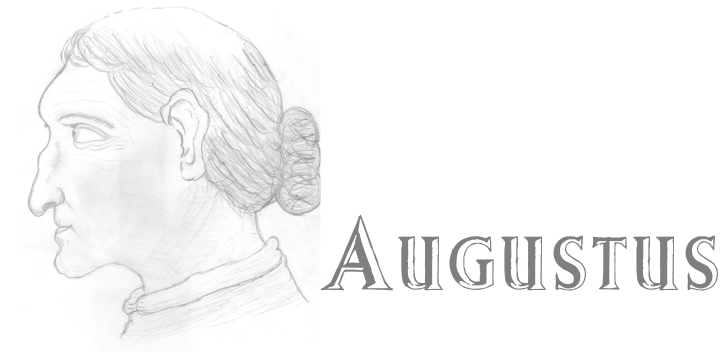
Augustus Font is a regal and distinguished serif typeface that evokes the grandeur and authority of classical Roman lettering, while maintaining clear readability for modern applications. Its stately presence, strong serifs, and balanced proportions make it an exceptional choice for projects aiming to convey tradition, prestige, and timeless sophistication. Imagine it perfect for high-end luxury branding, elegant historical book covers, formal corporate documents, sophisticated wedding invitations, museum exhibit titles, and refined editorial layouts for art and culture publications. This font excels in environments where a sense of established gravitas, intellectual depth, and polished professionalism are paramount. It ensures your message is conveyed with both commanding presence and graceful charm, making your content feel both authoritative and effortlessly refined.
What makes Augustus Font truly exciting is its remarkable ability to blend the monumental majesty of ancient Roman inscriptions with the practical demands of contemporary design. It retains the powerful, enduring quality of classical typography while being meticulously crafted for optimal performance in today's digital and print media. This allows it to convey a sense of heritage and trustworthiness without appearing outdated or overly formal. The robust letterforms, precise detailing, and excellent legibility across various sizes make it a reliable workhorse for both commanding headlines and extended body text. Augustus Font isn't just about displaying text; it's about building a legacy and enhancing your content with a timeless, sophisticated visual presence that speaks to discerning taste and enduring value.
The Augustus Font family typically offers a comprehensive range of weights and styles to ensure maximum versatility for diverse design projects. You'll often find it includes a full spectrum from light to regular, medium, semi-bold, and bold, along with their corresponding italic styles. Some extended versions might even feature condensed or expanded widths, or specialized characters like ligatures and stylistic alternates, further broadening its application possibilities. This extensive family ensures that Augustus Font Free Download can adapt seamlessly to any design challenge, from exquisite headlines that demand attention to elegant body text in a prestigious publication, all while maintaining a consistent and harmonious visual language. Its broad character set usually covers a wide range of Latin characters, numbers, and extensive punctuation, making it suitable for international projects and sophisticated textual layouts.